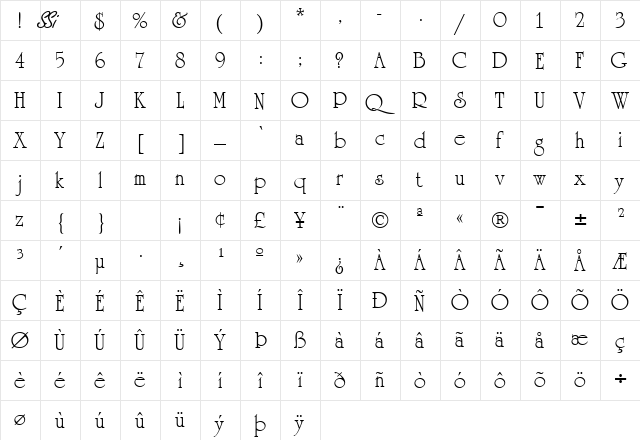
AcademiaSSK Regular
Design Context for AcademiaSSK Typeface
AcademiaSSK is a composed and adaptable typeface that performs quietly and consistently across a wide range of design contexts.
Pro Tip: Use AcademiaSSK in both headline and body roles to test its range before committing to a single application.